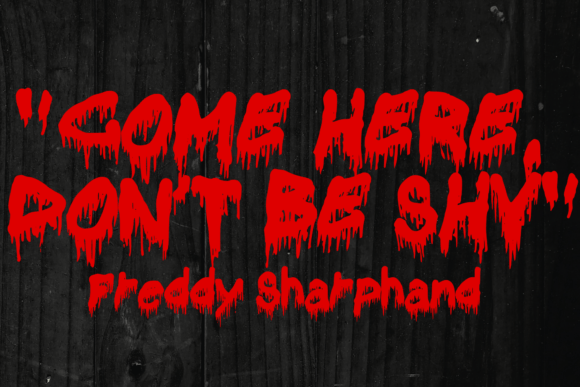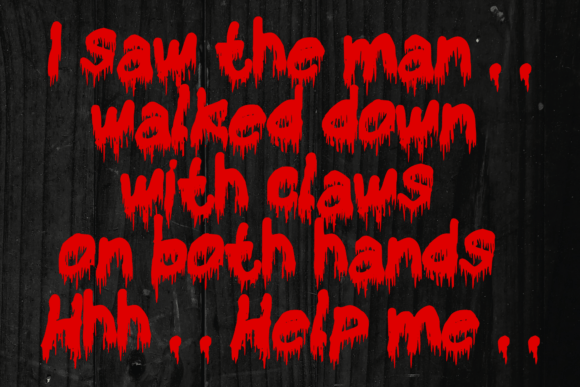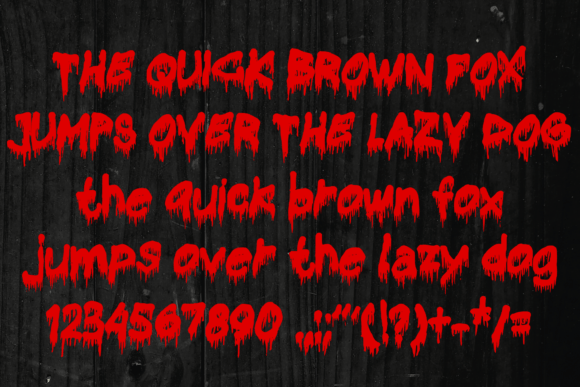
The Perfect Font for Your Dark Creations
As the sun sets on a crisp autumn evening, the air is filled with the thrill of Halloween and the excitement of unleashing your creativity. You’re rummaging through your design files, searching for the perfect font to give your project that eerie touch. Suddenly, you stumble upon a font that sends shivers down your spine – the Bloody Horror Font.
This ink-made handwritten font is a treasure trove for designers who want to add a horror twist to their designs. With its bold and macabre style, the Bloody Horror Font is perfect for creating terrifying book covers, spooky greeting cards, and haunting party decorations. Whether you’re a seasoned designer or a novice, this font will help you unleash your dark side and create designs that will leave your audience screaming for more.
Bloody Horror Font Key Features
- Font Family: Bloody Horror Font is a unique, horror-themed font family consisting of multiple styles and weights.
- Unique Characteristics: The font features bold, gothic-inspired letterforms with intricate details, making it perfect for horror-themed designs, such as movie posters, book covers, and video game titles.
- Style and Weight Options: The font family includes multiple styles and weights, including bold, italic, and regular, allowing users to customize their designs according to their needs.
Bloody Horror Font Review
Overall, I’m quite impressed with the Bloody Horror Font. Here are some aspects that work well:
- ✨ The font’s distressed, hand-drawn look adds a unique and eerie feel to any text, making it perfect for horror-themed projects or projects that need a spooky vibe.
- ✨ The font is highly customizable, with a range of styles and weights available, allowing designers to adjust the look to suit their needs.
- ✨ The font includes a wide range of glyphs, including international characters, making it suitable for use in multi-language projects.
However, I do have a few concerns:
- ⚠️ The font may be too over-the-top for some projects, potentially overwhelming the design with its bold and graphic style.
- ⚠️ Some users may find the font’s irregularities and imperfections distracting, particularly if they’re looking for a more polished or corporate look.
- ⚠️ The font’s limited legibility may make it difficult to read at small sizes or in situations where text needs to be quickly scanned.
Overall, I think the Bloody Horror Font is a solid choice for designers who want to add a touch of horror or darkness to their projects. While it may not be suitable for every design, its unique look and high level of customization make it a valuable addition to any designer’s toolkit.
For the best results, use the Bloody Horror Font in conjunction with bold, italics, or all caps to create a dramatic effect. You can also experiment with different font sizes and colors to add emphasis to your text.
The Bloody Horror Font is ideal for horror-themed projects, such as movie posters, book covers, or social media graphics. It can also be used for Halloween-themed designs, such as party invitations or decorations.